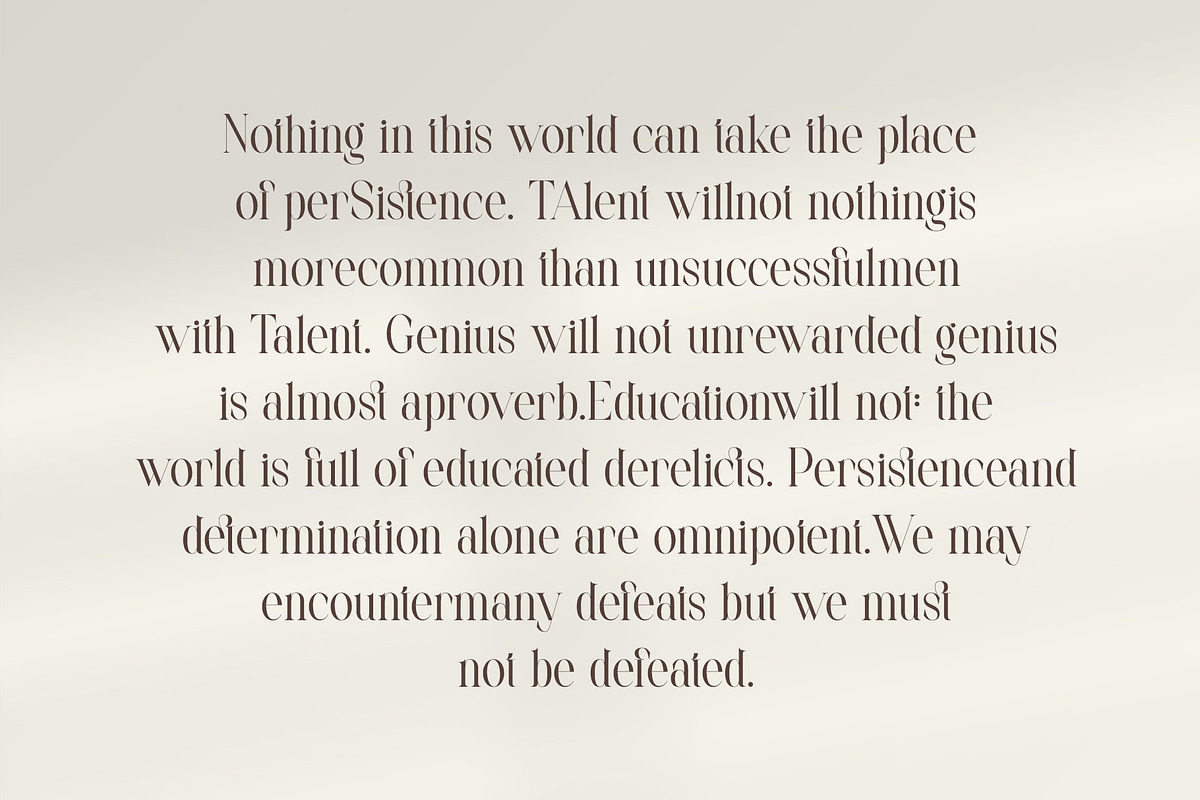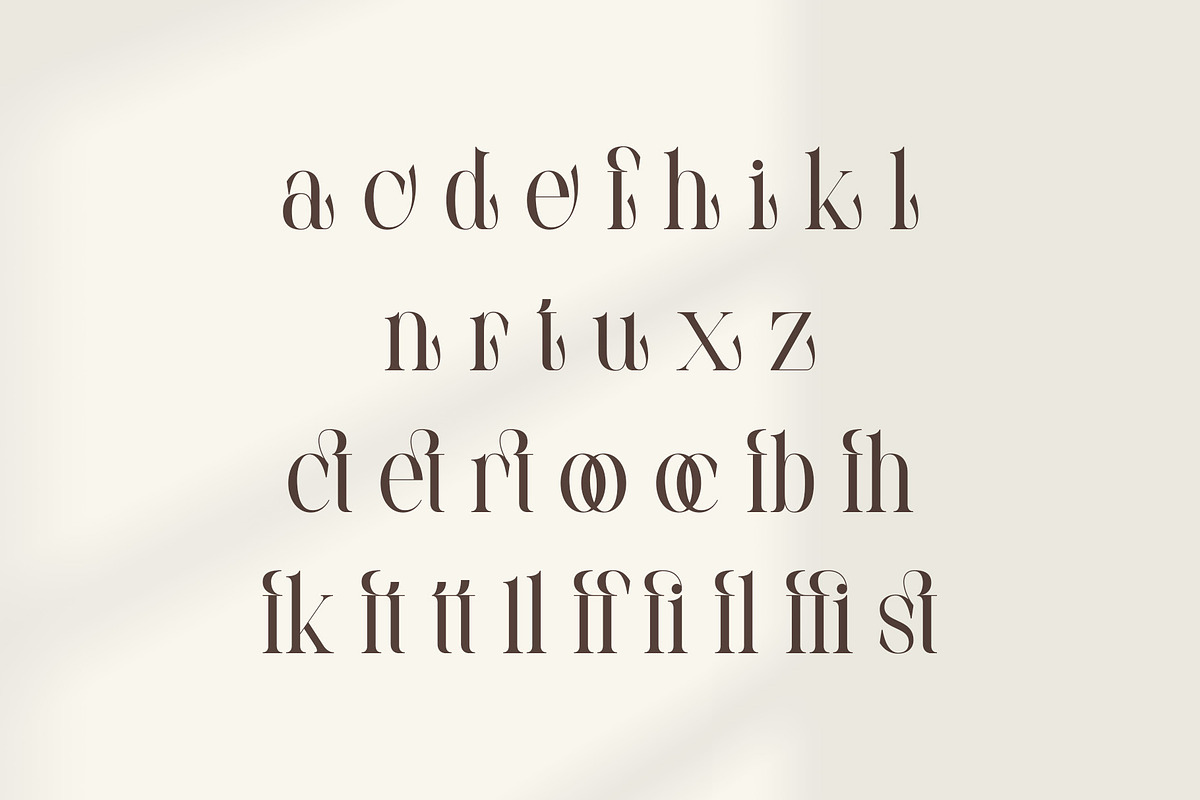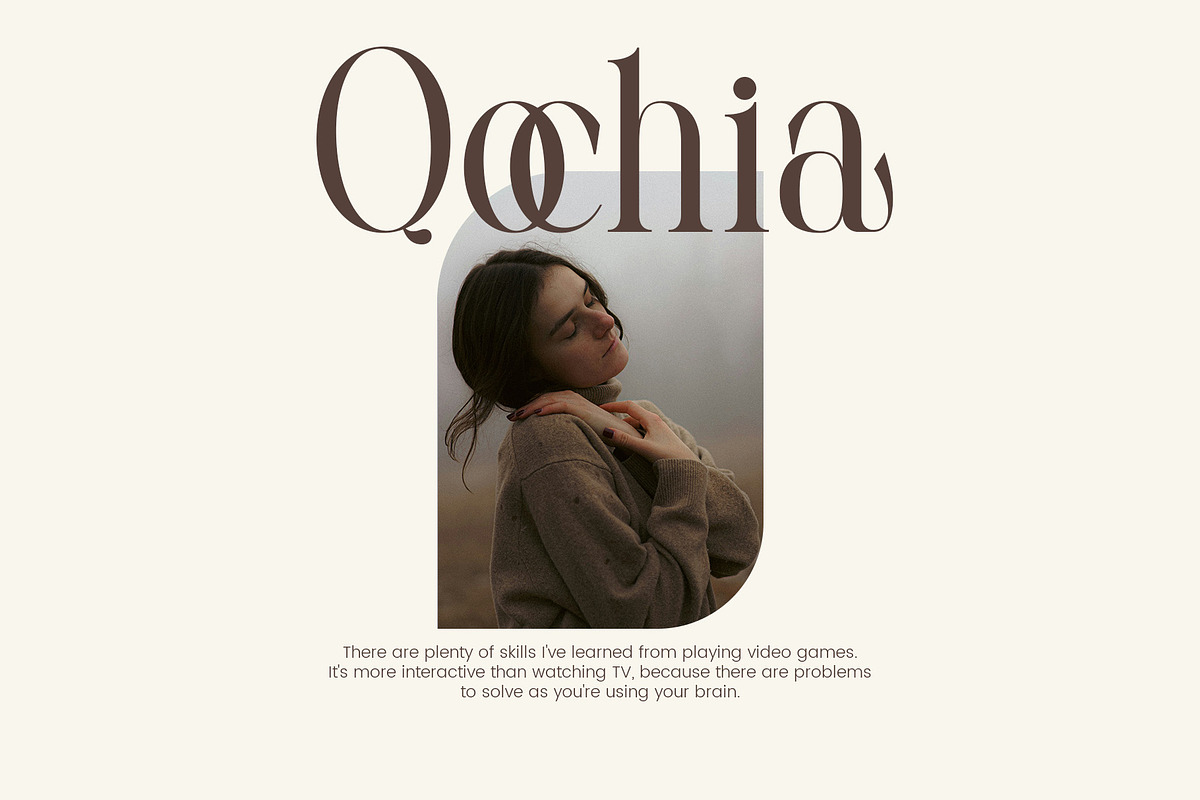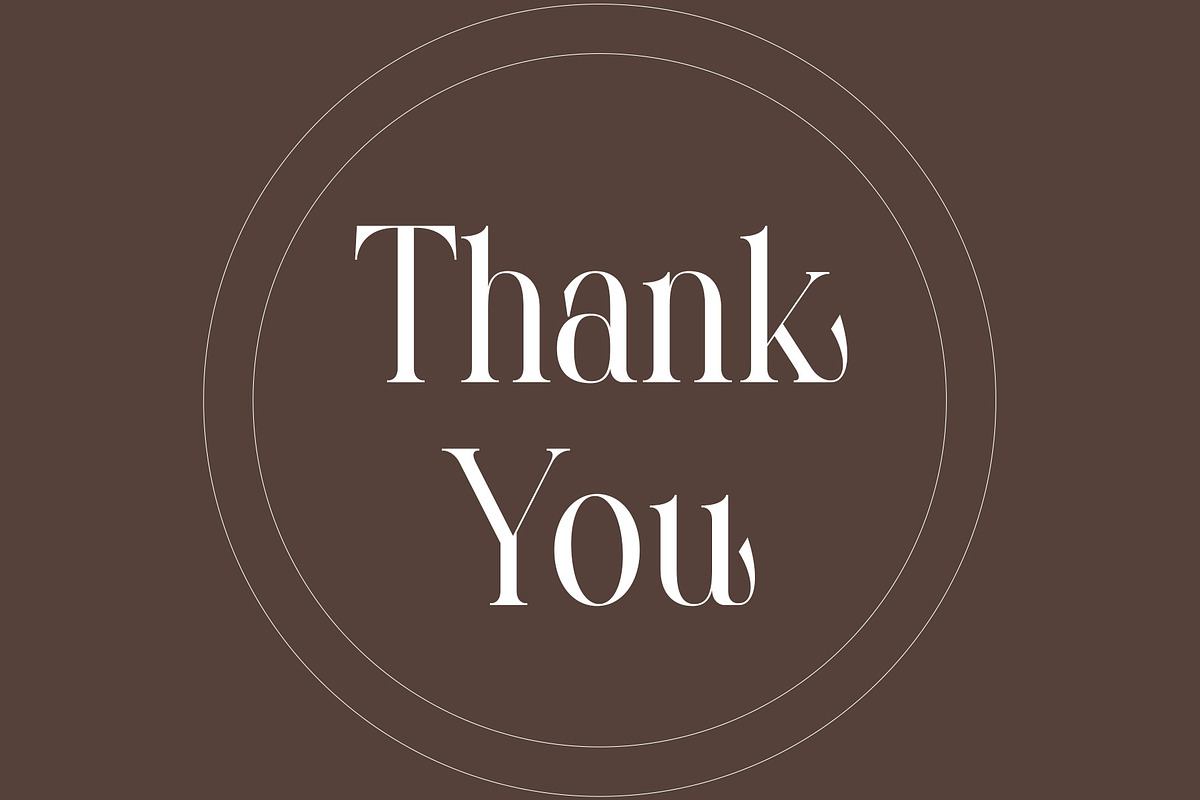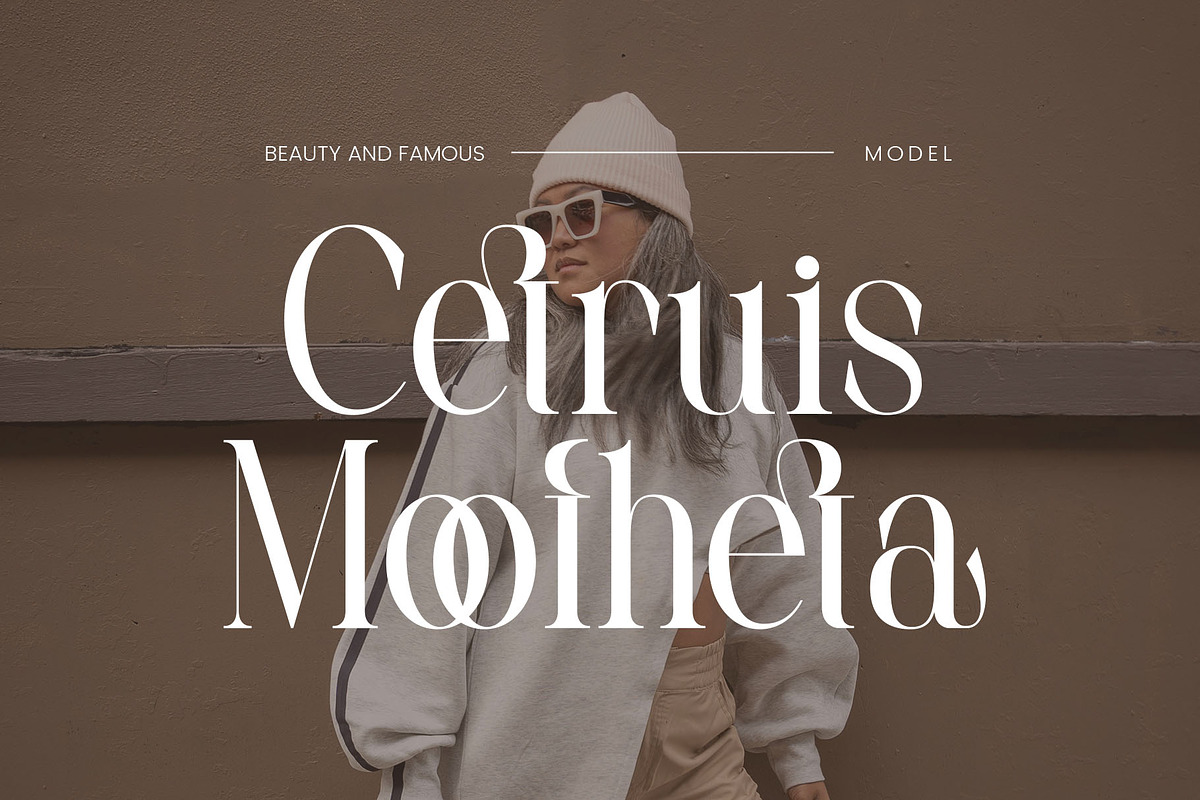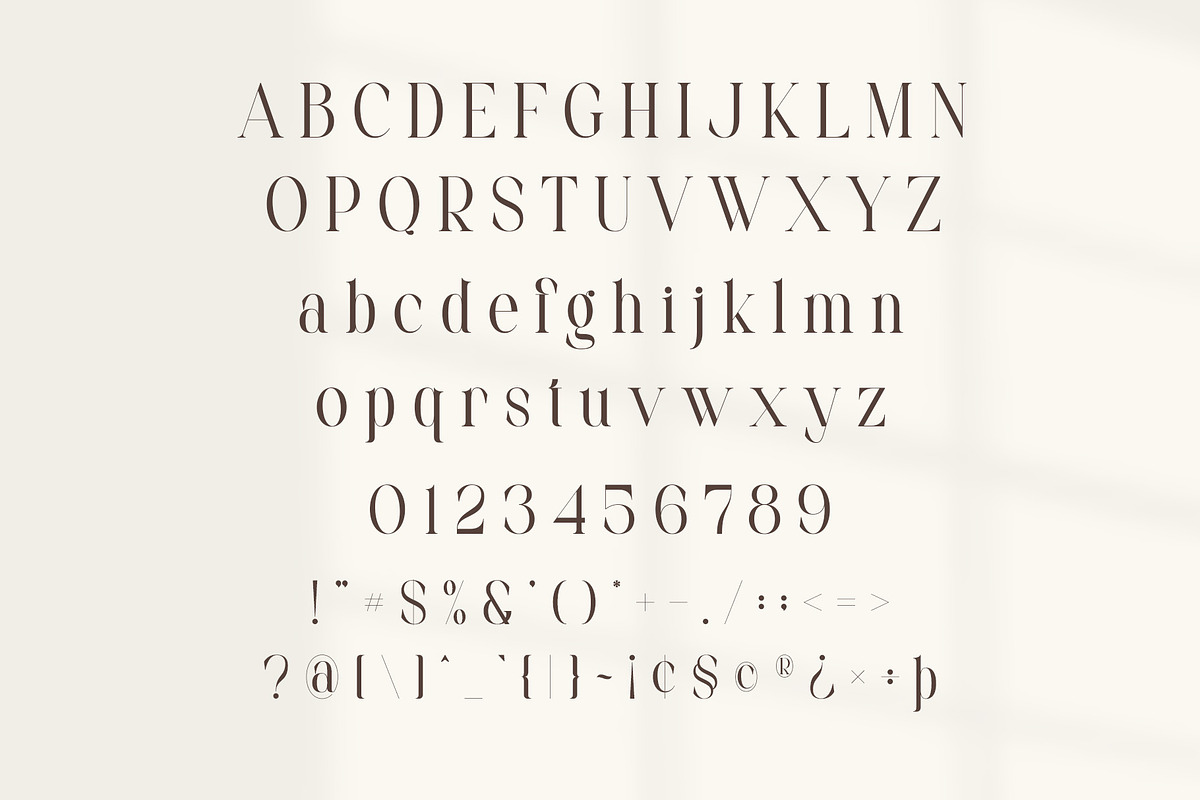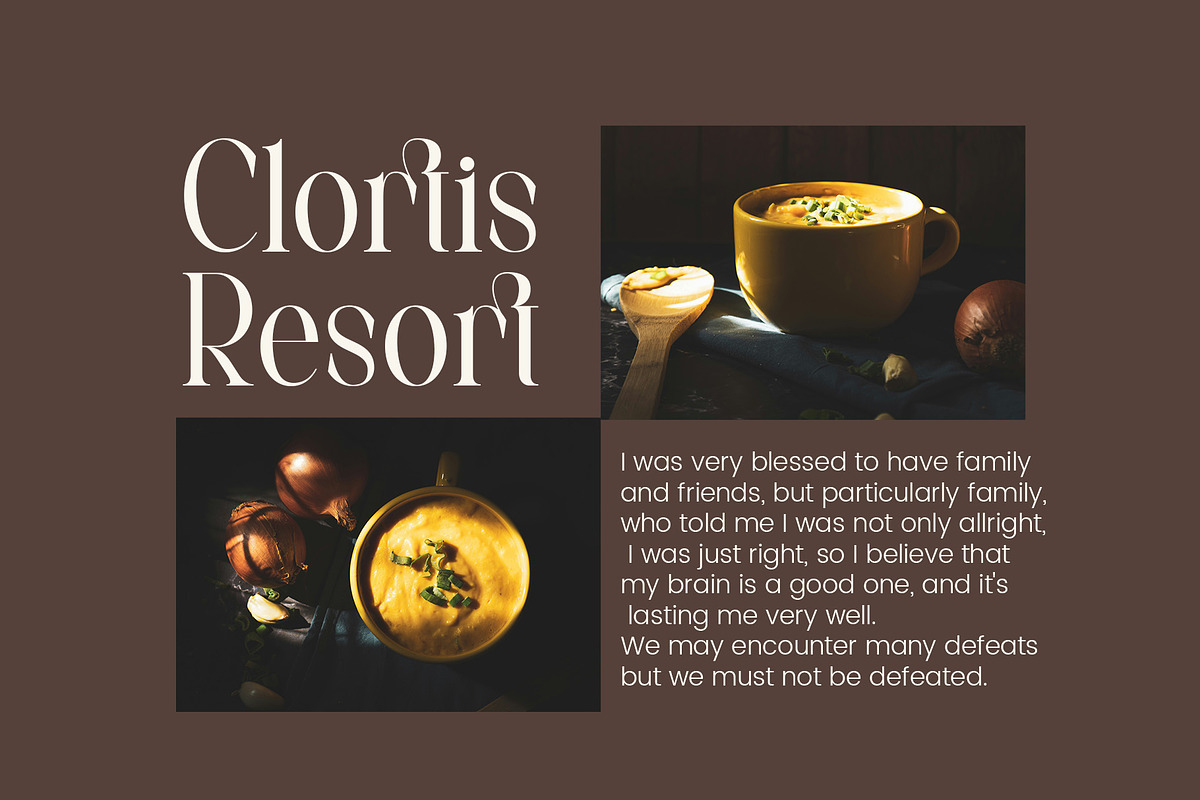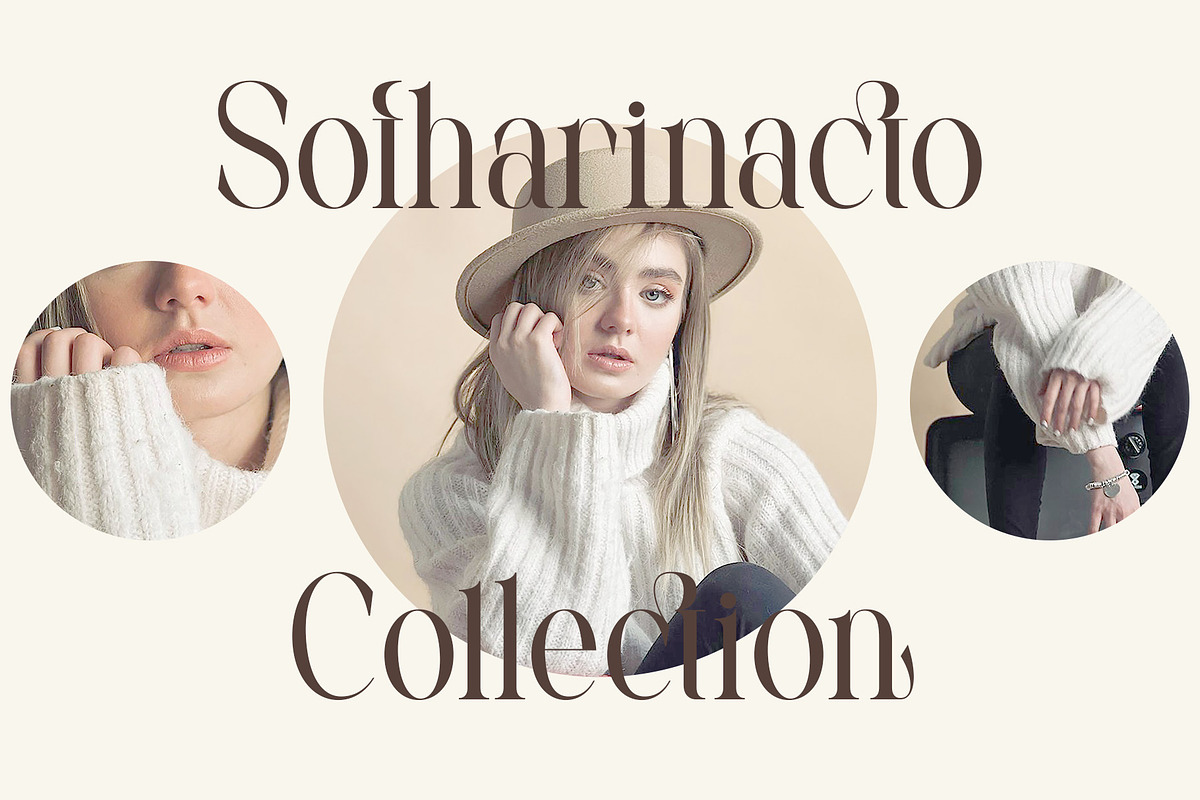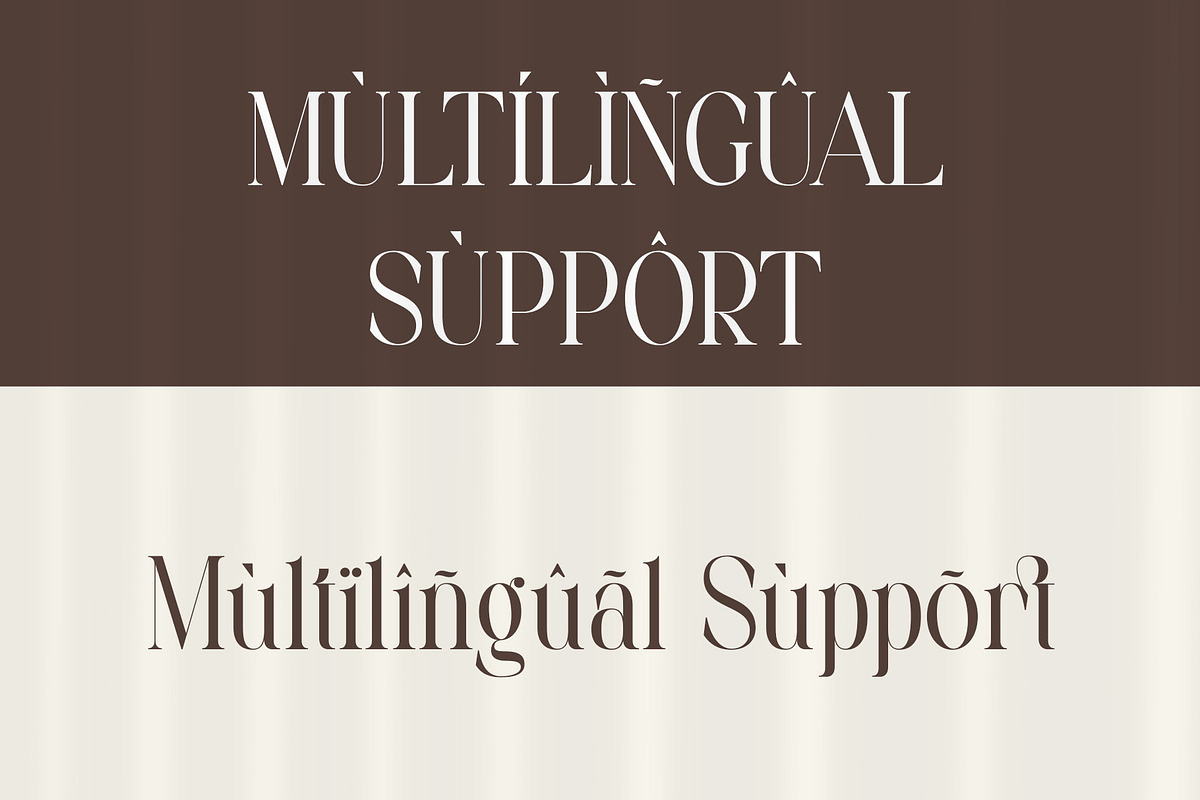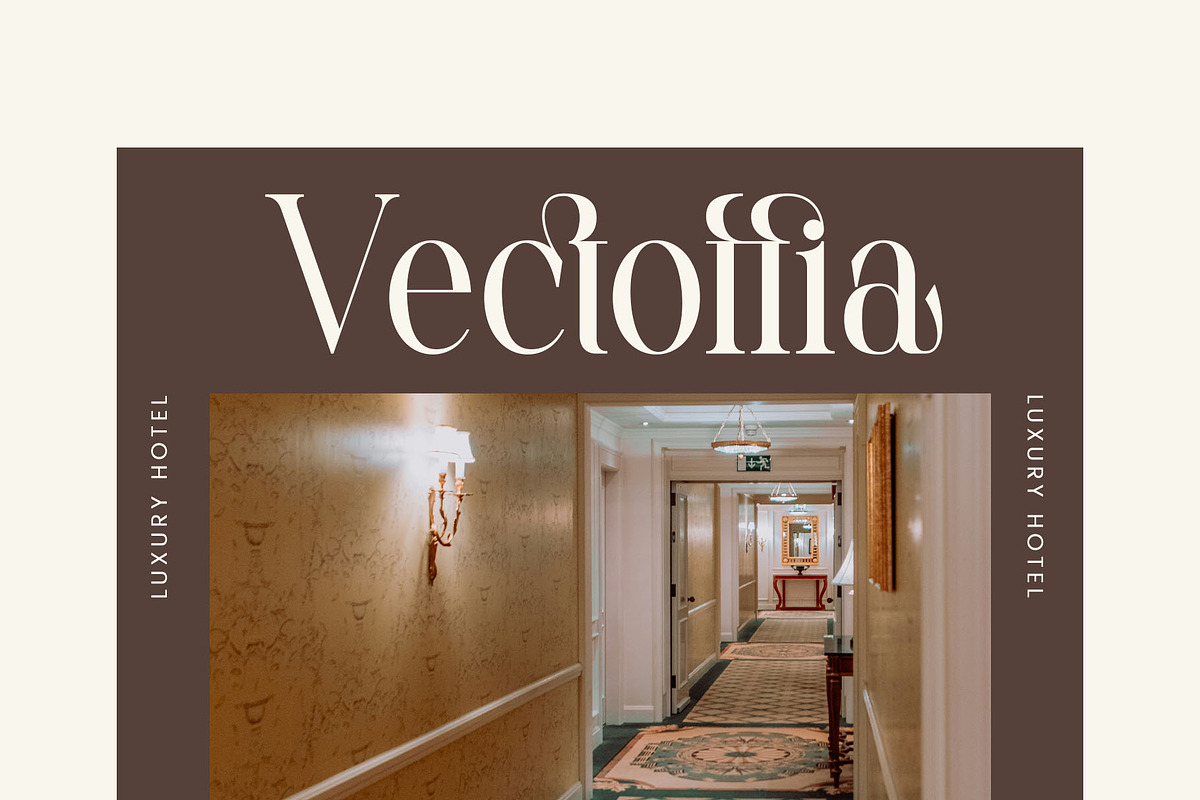
Qastic Estoda - Elegant Serif Font
Qastic Estoda Stylish Ligature Typeface, inspired by the famous minimalist logo perfect for the purposes of designing templates, brochures, videos, advertising branding, logos and more.